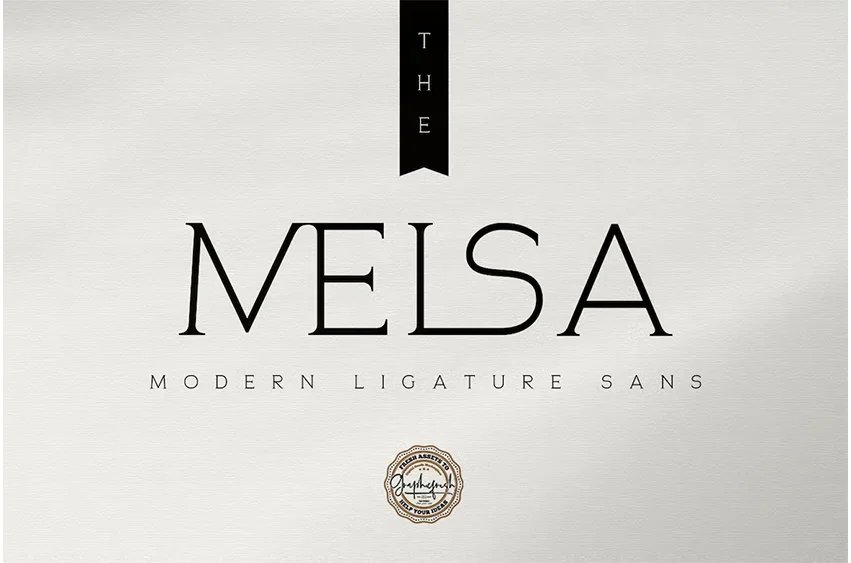
The Melsa Font
The Melsa Font – Modern Ligature Sans and minimalist character! it’s perfect for logos, name card, magazine layouts, invitations, headers, or even large-scale artwork.
The Melsa is a round lettered and distinct serif font. It can easily be matched to an incredibly large set of projects, so add it to your creative ideas and notice how it makes them stand out!